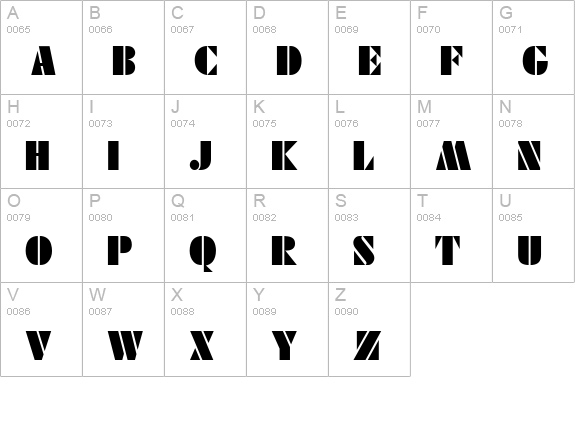
Cado Display SSi Font Details
Cado Display SSi is a stunning and eye-catching font that will elevate any design project to new heights. This versatile font is perfect for headlines, logos, posters, and any other creative endeavor that requires a touch of elegance and sophistication. With its bold and distinctive letterforms, Cado Display SSi commands attention and leaves a lasting impression. The clean lines and geometric shapes of this font give it a modern and contemporary feel, making it ideal for both digital and print applications. What sets Cado Display SSi apart is not only its striking design but also its availability for free. Yes, you read that right! This incredible font is freely available to download at FontsMarket.com. Now you can effortlessly add a touch of class to your designs without breaking the bank. Whether you are a professional designer or an aspiring creative, Cado Display SSi will become your go-to font for all your typographic needs. Its versatility and elegance make it suitable for a wide range of projects, from branding and packaging to editorial and web design. So why wait? Embrace the power and beauty of Cado Display SSi and transform your designs from ordinary to extraordinary. Download this amazing font for free at FontsMarket.com and let your creativity soar to new heights.